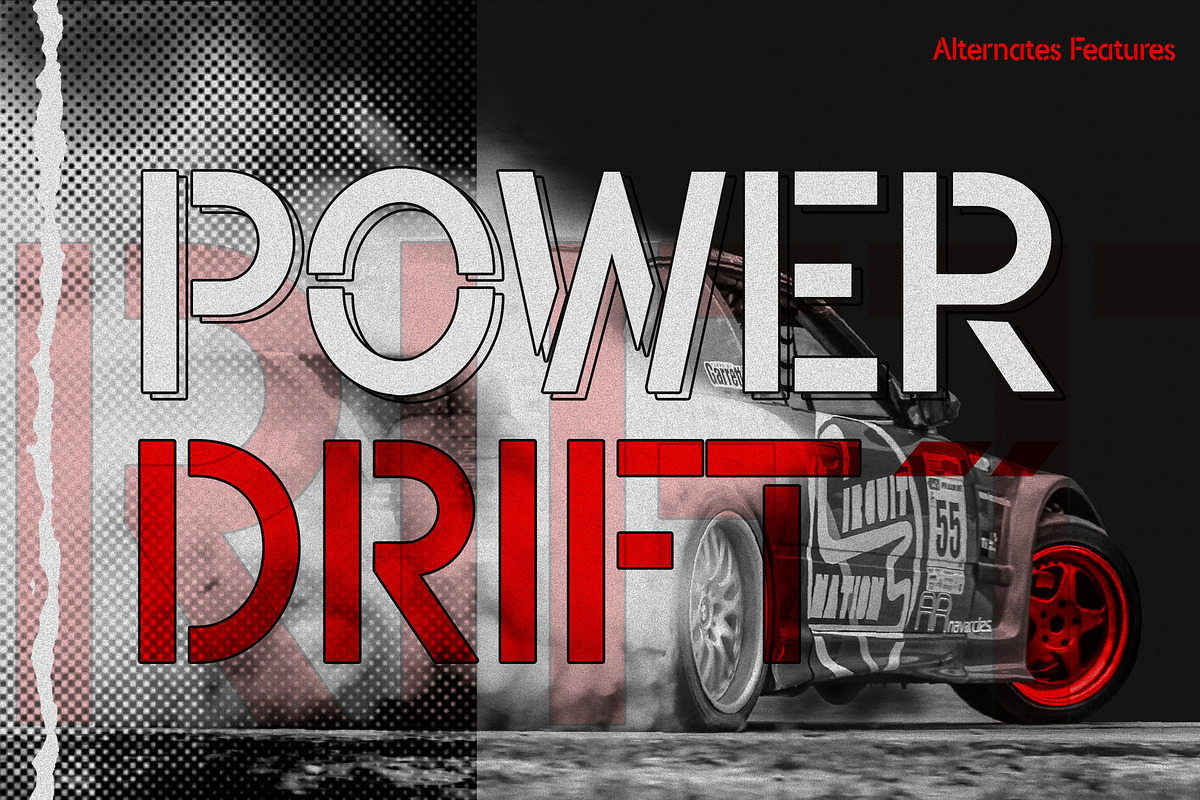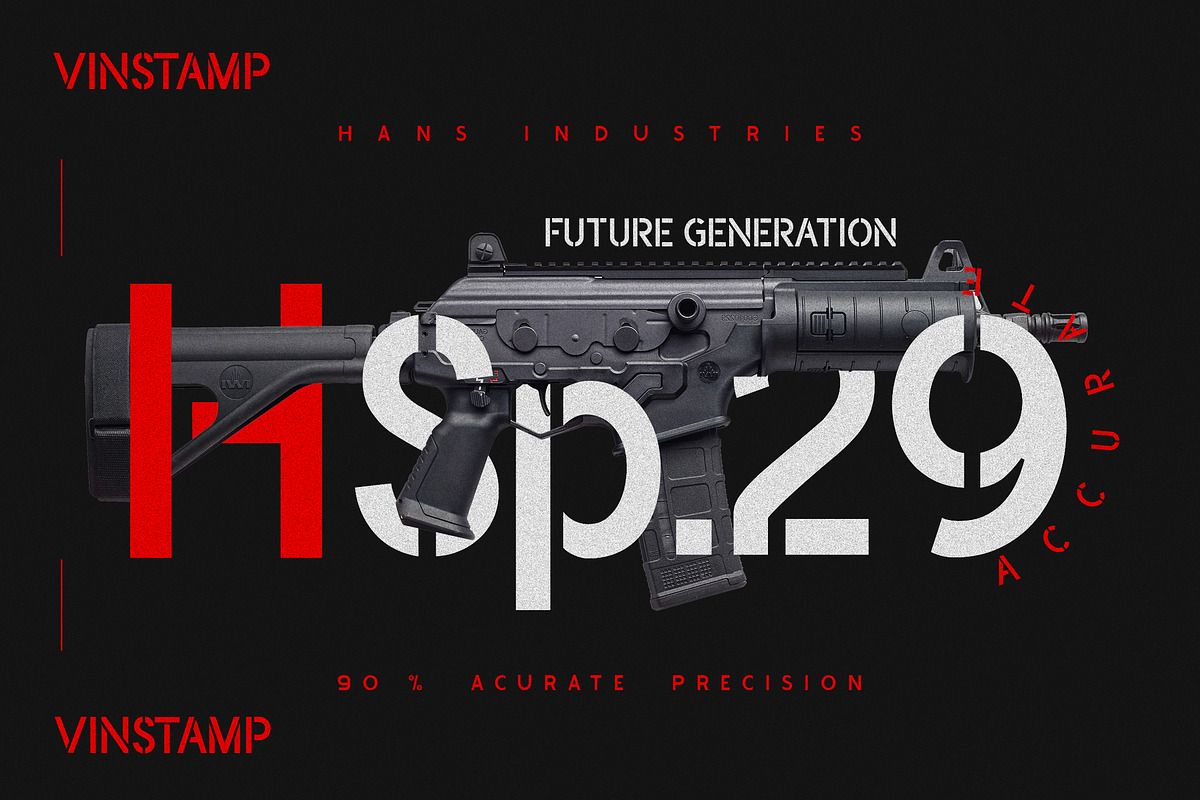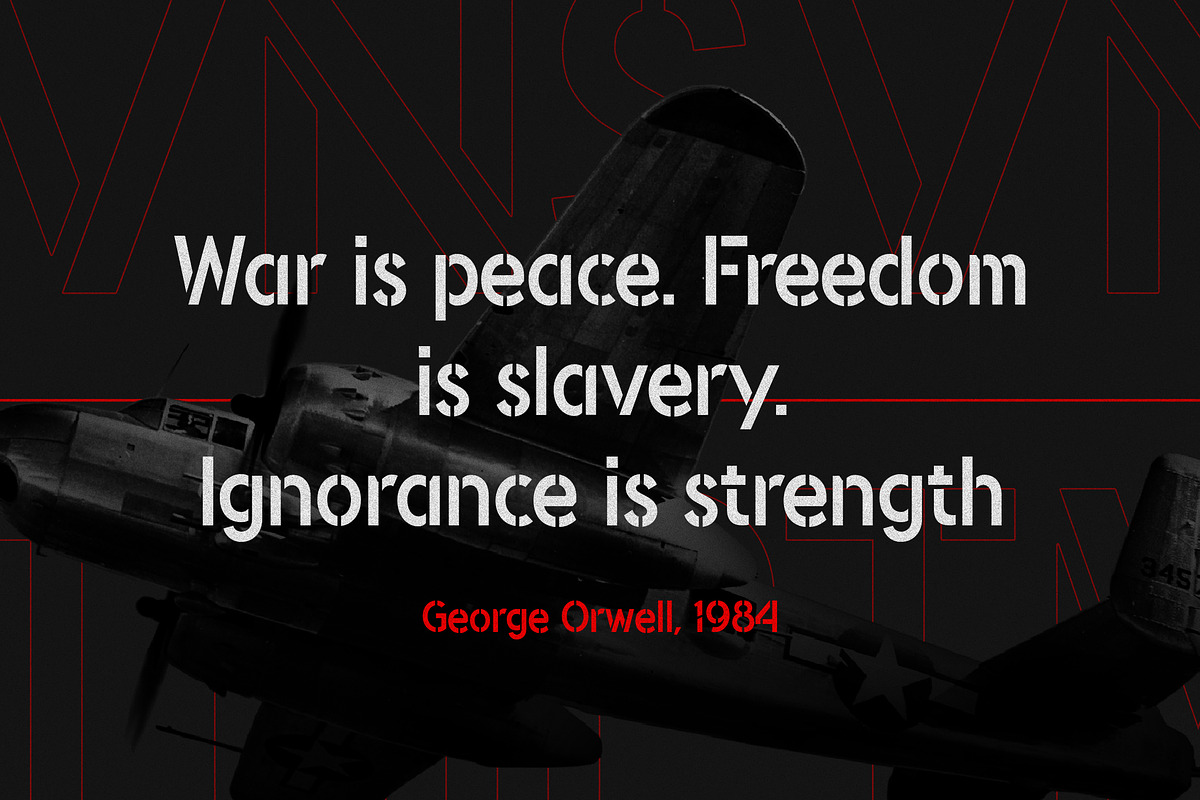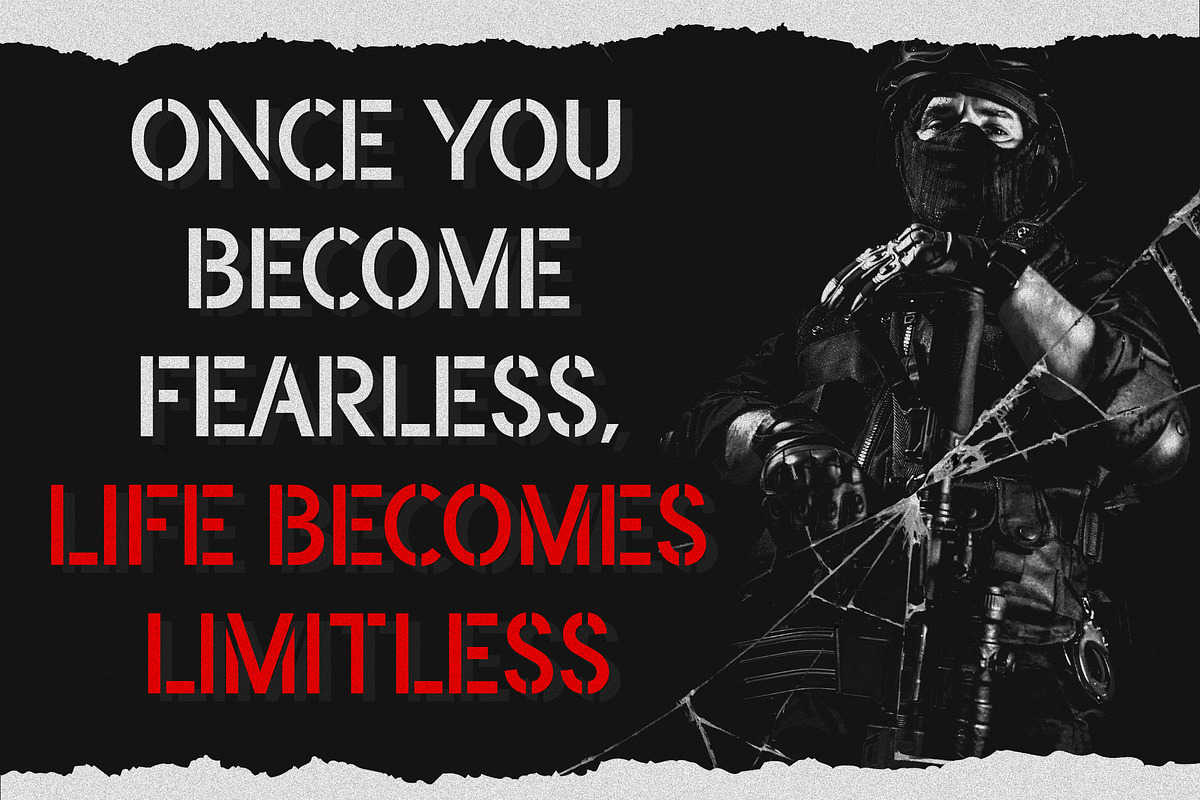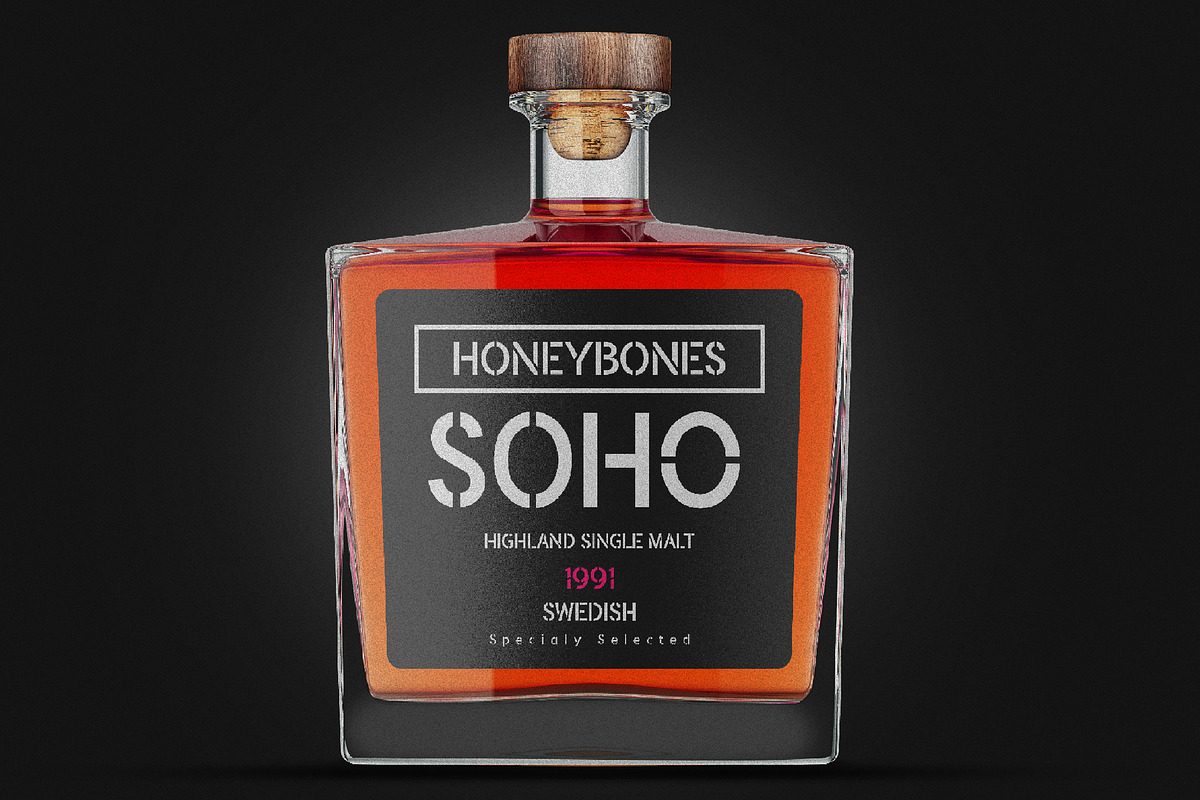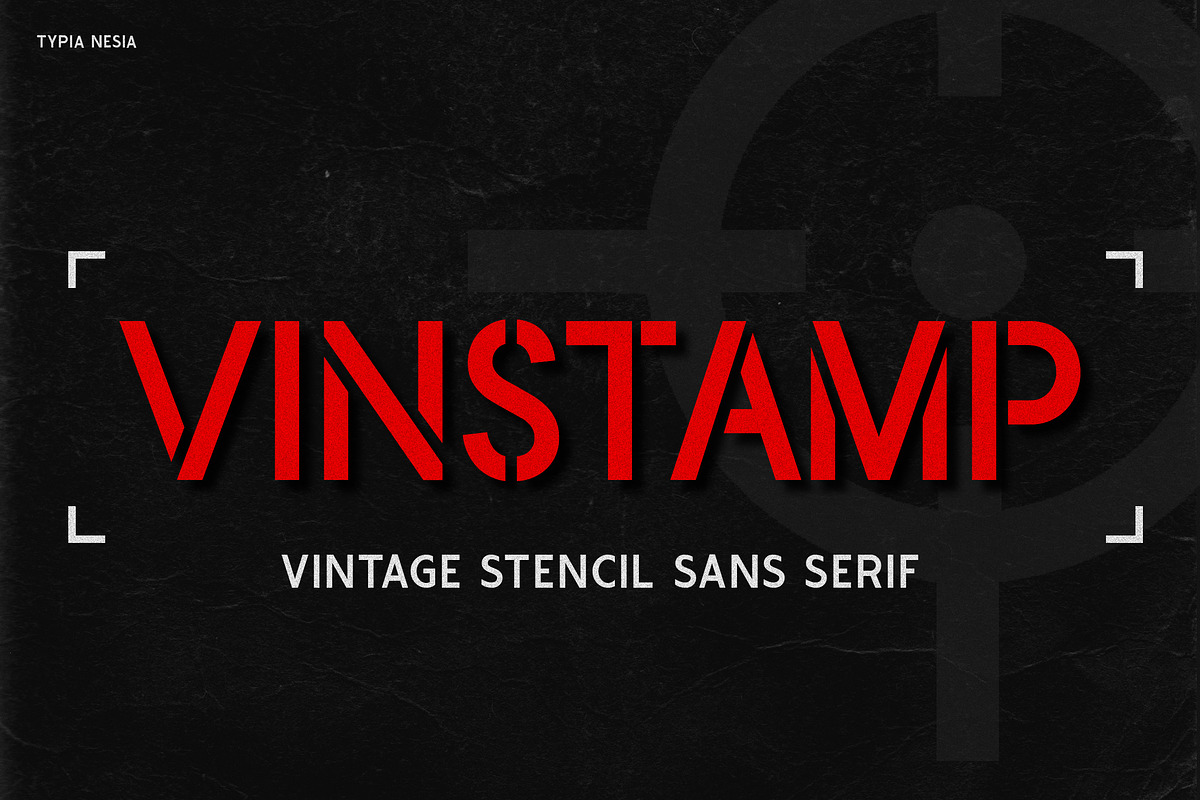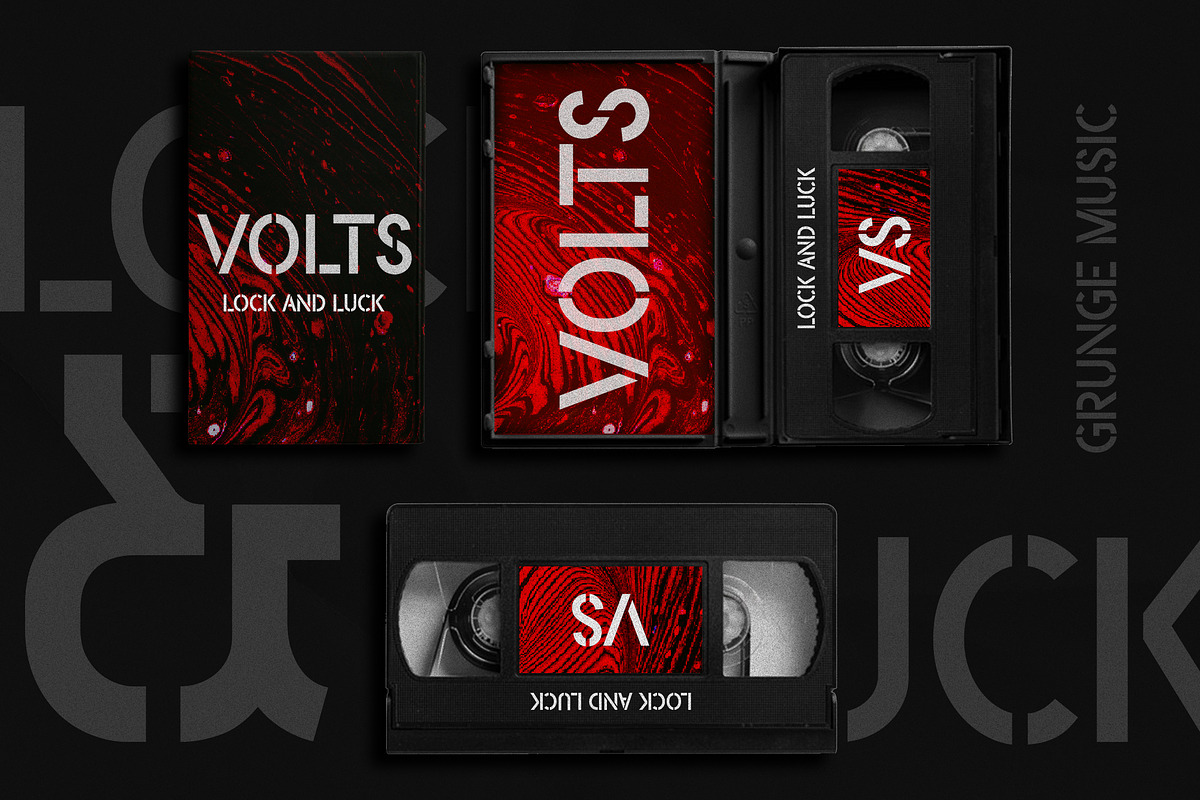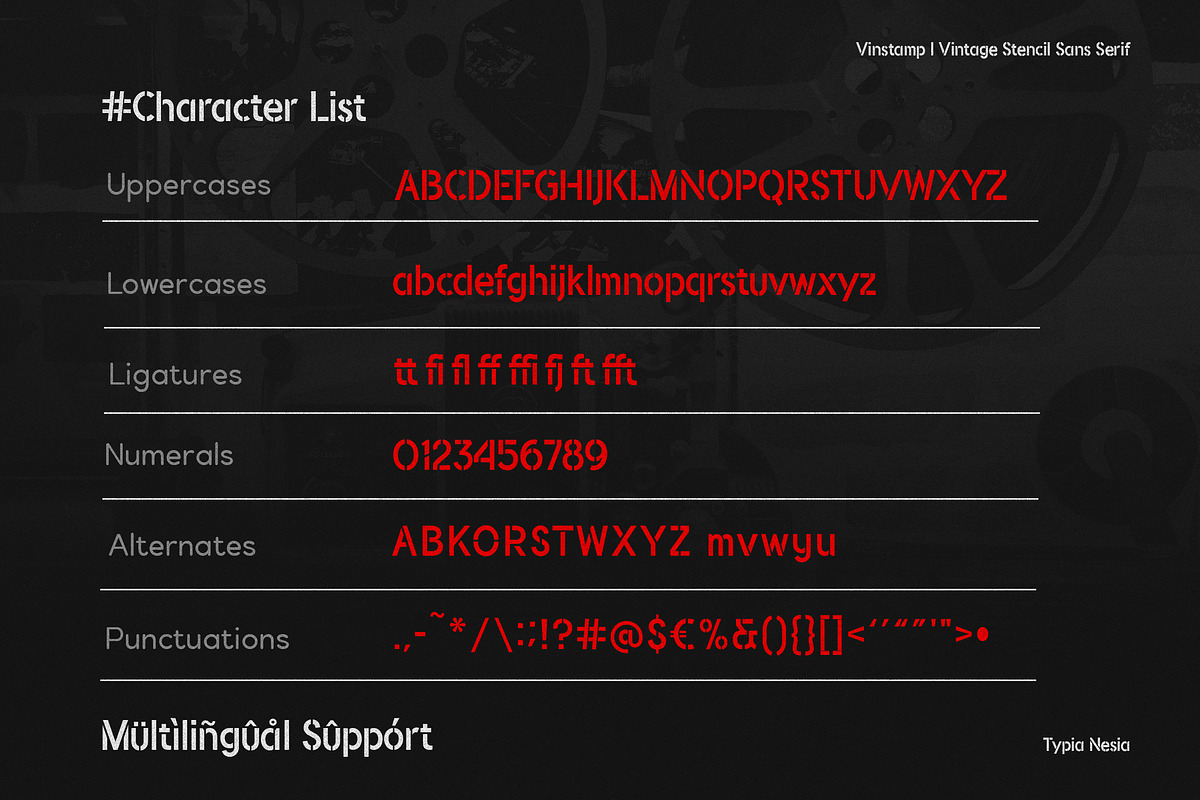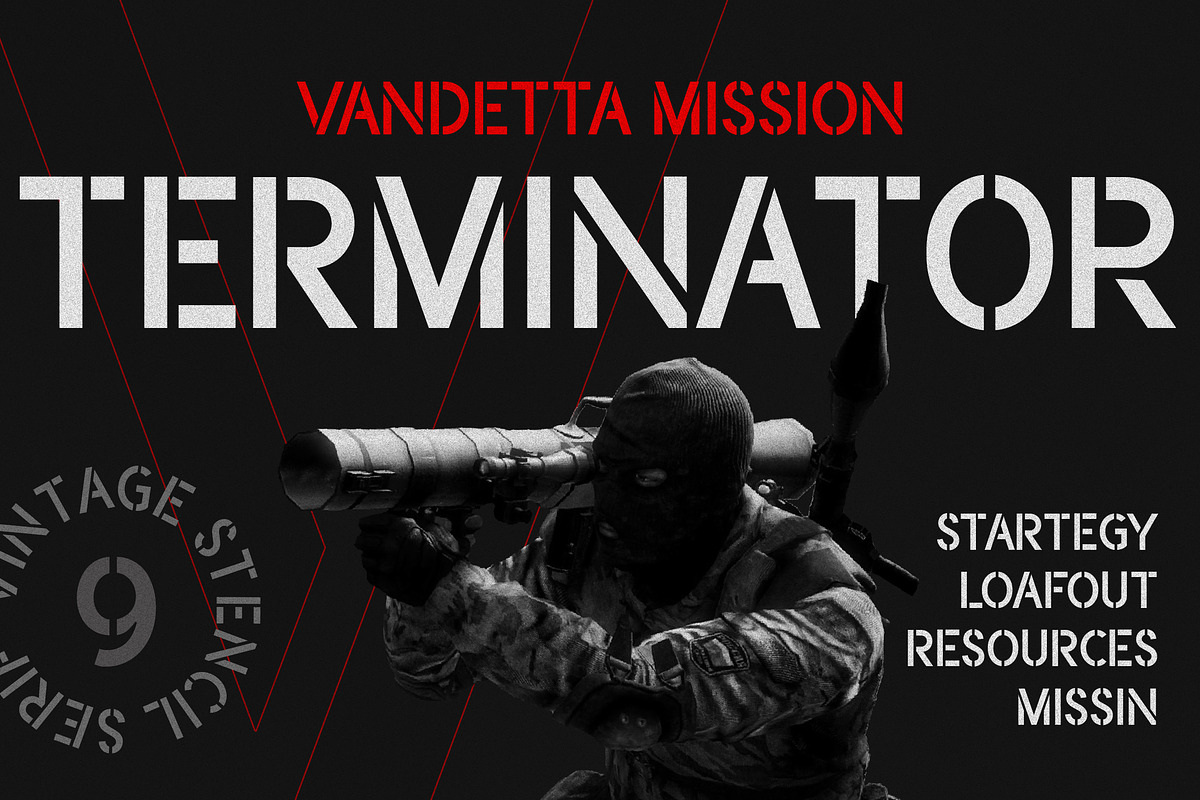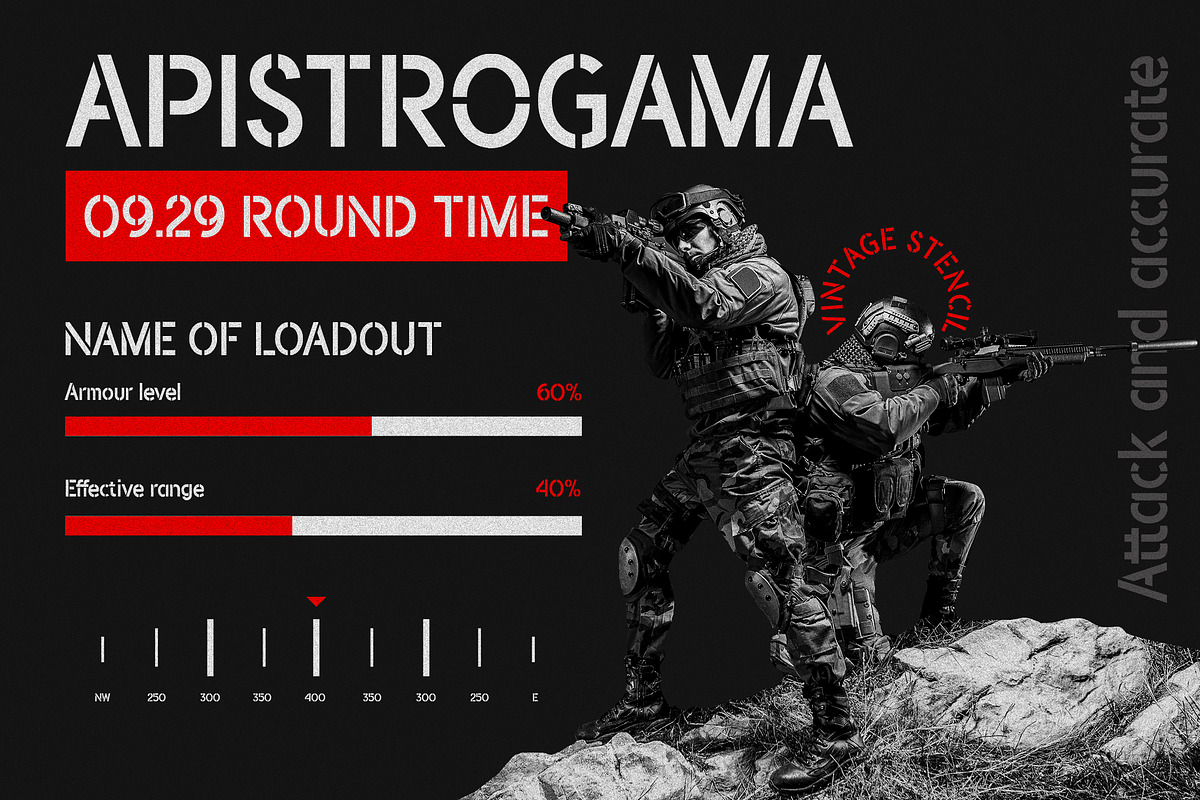
Vinstamp - Stencil Sans
Vinstamp - Military Game Stencil Sans Serif Font
Vinstamp - Military font is perfect for your up coming projects. Such as logo branding, game or esport industry, editorial design, fashion, stationery design, sport design, blog design, modern advertising design, card invitation, art quote, home decor, book/cover title, special events and any more.